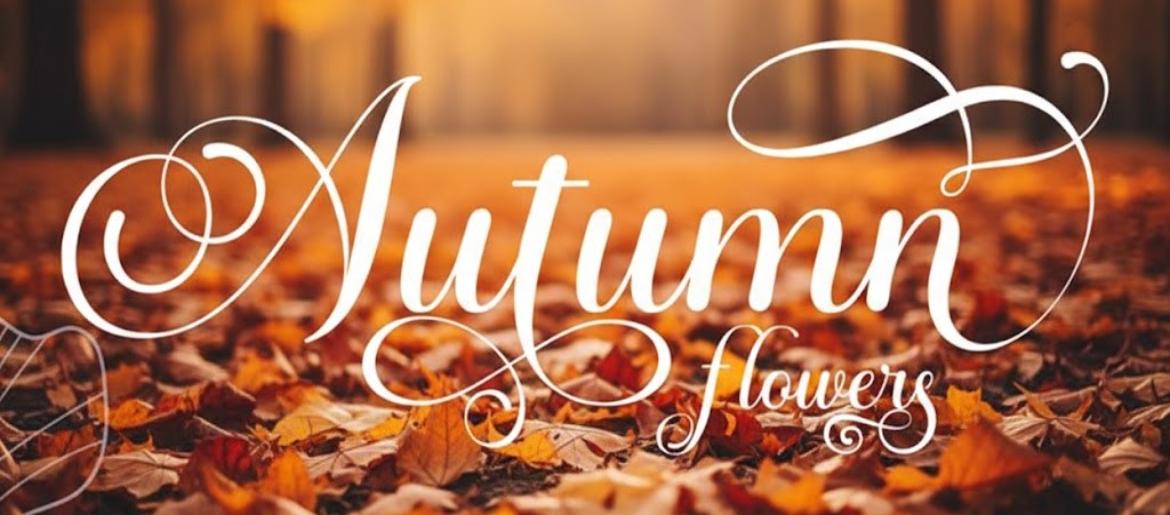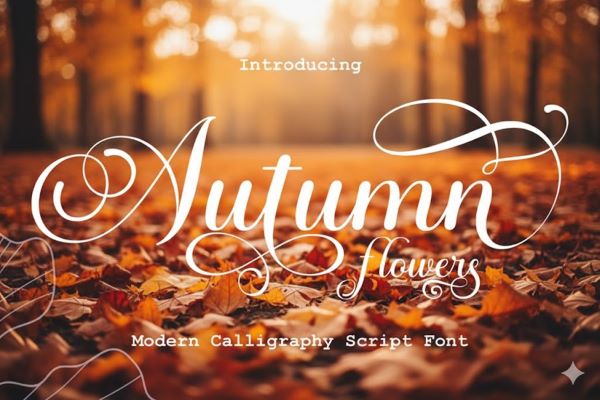
Autumn Flowers
Autumn Flowers Font
Autumn Flowers Font is a graceful calligraphy script typeface with flowing strokes and delicate curves. Its romantic, handwritten style makes it perfect for wedding invitations, quotes, logos, greeting cards, and seasonal designs that need an elegant and warm visual touch.
➤ Font Name: Autumn Flowers
➤ Designer: Miftaharzaq
➤ Style: Calligraphy